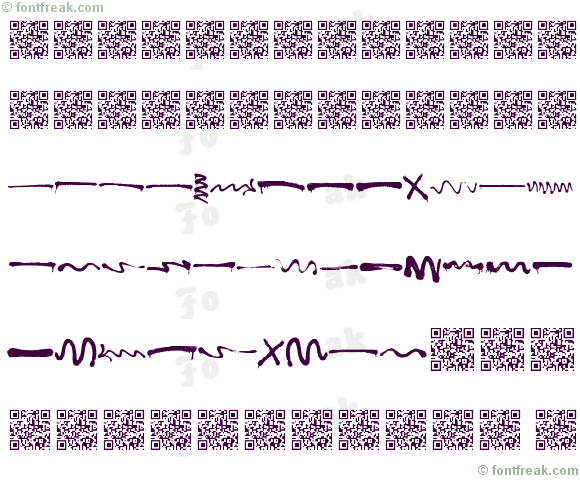
funlines
About funlines
Funlines by Xerographer Fonts is a captivating display font that exudes a playful and whimsical character, making it an excellent choice for creative projects. This unique font features a decorative style, characterized by its irregular stroke weight and lively forms. The design showcases a dynamic contrast, with varying thicknesses that contribute to its distinct personality. The spacing between characters is thoughtfully balanced, allowing for easy readability while still maintaining a fun, artistic flair.
Ideal for a range of applications, the Funlines font shines in contexts that require a lighthearted touch. It is particularly well-suited for children's book covers, where its playful nature can capture the imagination of young readers. Additionally, it works wonderfully for promotional materials for events like birthday parties or festivals, where a sense of fun and excitement is essential. Graphic designers might also find it perfect for social media graphics, as its engaging style can attract attention and enhance visual storytelling. Furthermore, small business owners can leverage this font for product packaging or branding that aims to convey a friendly, approachable vibe.
What sets the Funlines font apart is its ability to effortlessly blend fun and functionality. It invites creativity and whimsy while remaining versatile enough for diverse applications. With the funlines font free download, you can easily incorporate this delightful typeface into your next design project, making it a standout choice for anyone looking to add a touch of joy to their work.